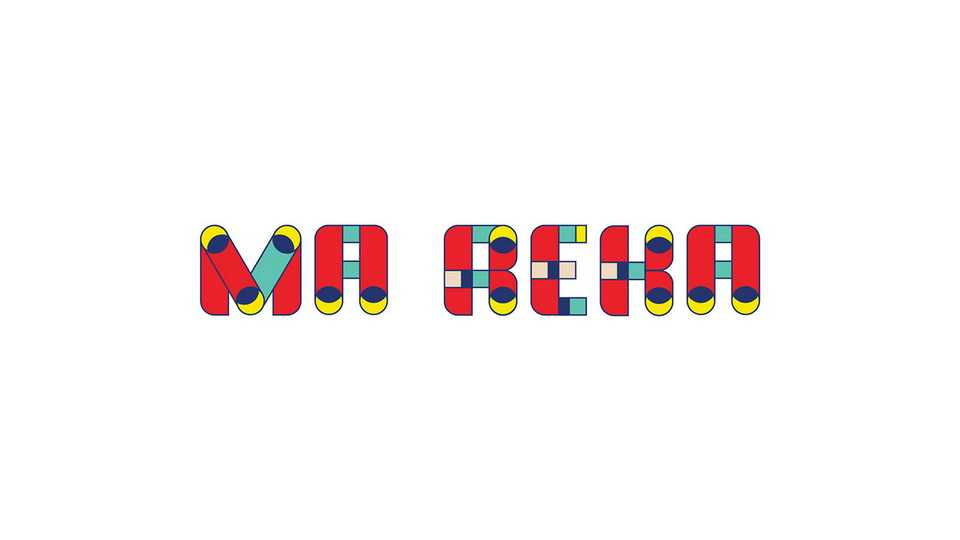
Download MA REKA font, a color typeface based on geometric shapes and fibonacci sequence. MA REKA font look perfect for packaging, loud messages and many more design projects.